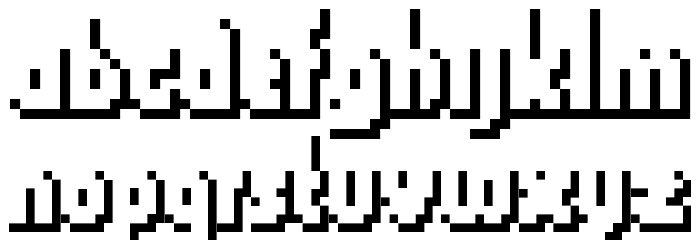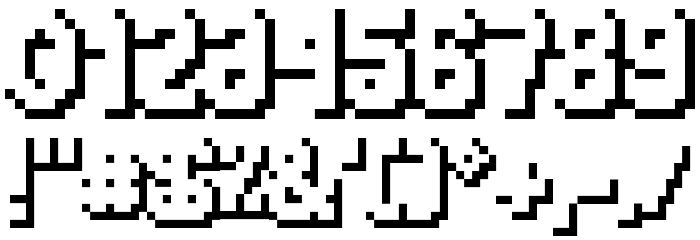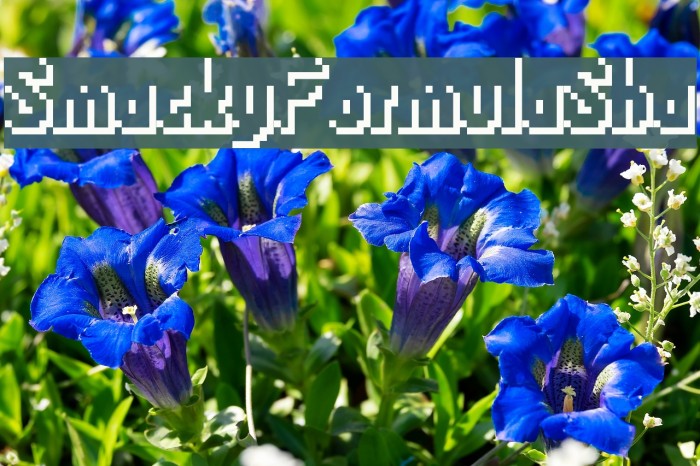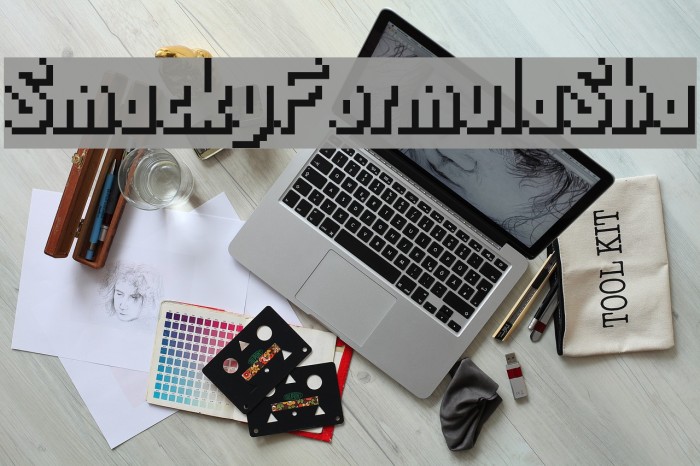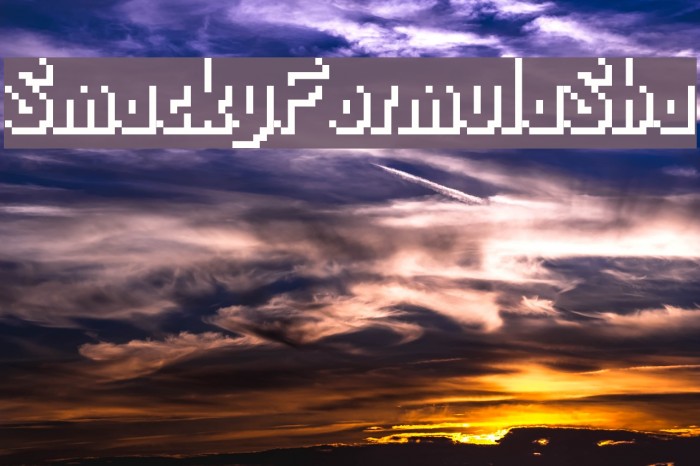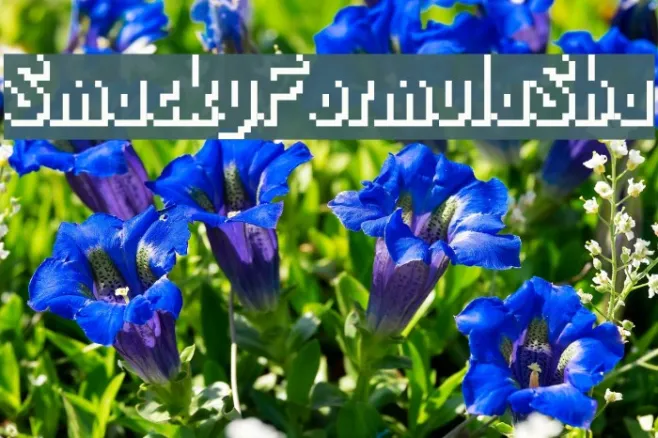
SmackyFormulaSha Font
This font features a pixelated, blocky design reminiscent of early digital or video game typography. Each character is composed of square, pixel-like elements, giving it a retro, 8-bit aesthetic. The uppercase and lowercase letters maintain a consistent height, contributing to a uniform appearance. The numerals and special characters follow the same pixelated style, ensuring cohesion across all glyphs. This font's distinct, nostalgic look is ideal for projects that aim to evoke a sense of vintage digital technology or gaming culture.
A pixelated, retro-style font with a blocky, 8-bit aesthetic.
- Proposed Projects: Ideal for video game design, retro-themed posters, digital art projects, and any creative work that seeks to capture the essence of early digital technology.
- Overall Style: Vintage